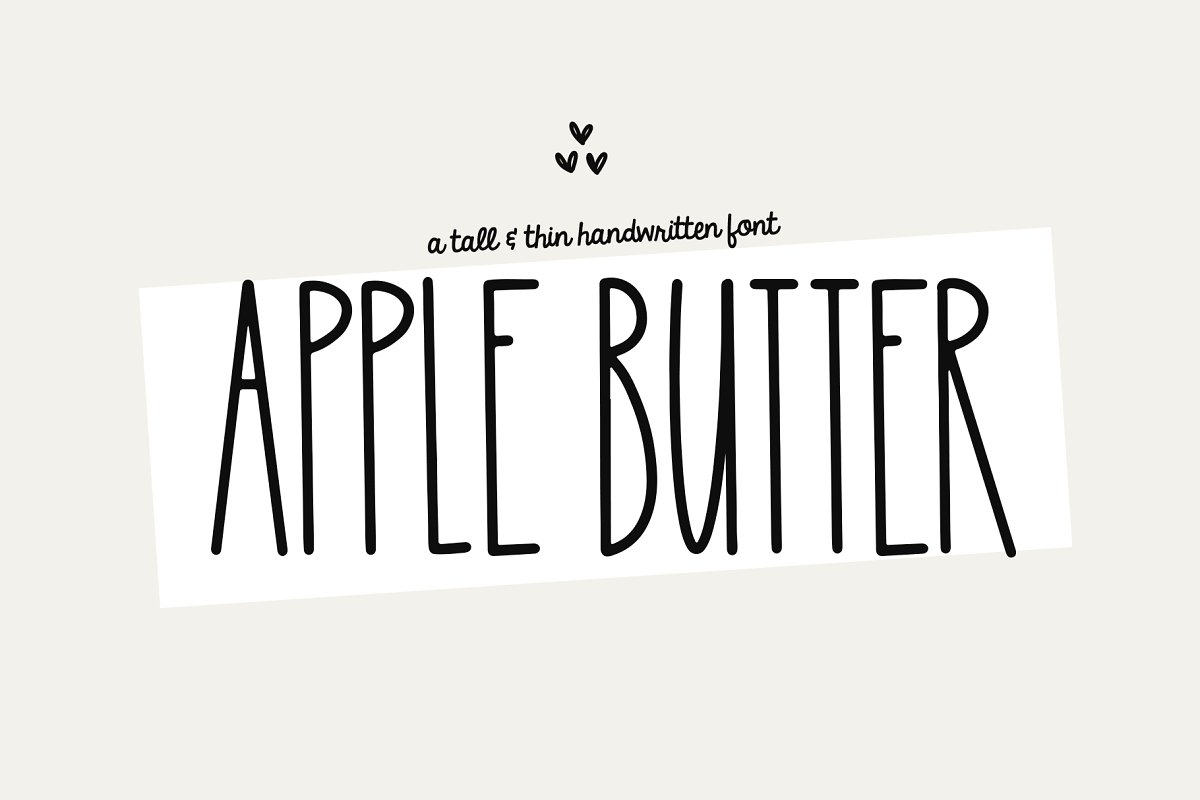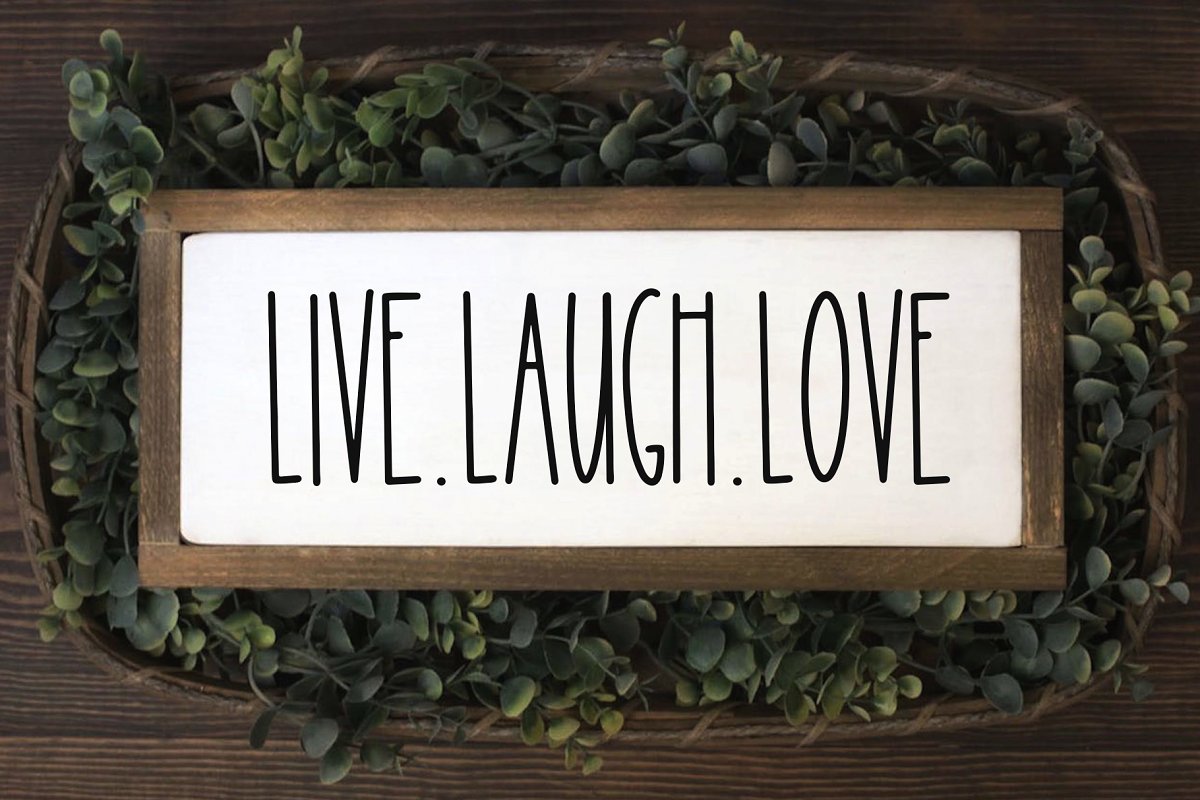
About the Apple Butter Tall Handwritten Font
Apple Butter is a tall + thin font perfect for your home decor and craft designs, This font is especially perfect for shirt designs, country decor, farmhouse signs, websites, branding, children’s designs, svg designs, blogs, logos, invitations and more!This purchase includes a TTF & OTF font file, Most accents included, Thank you!